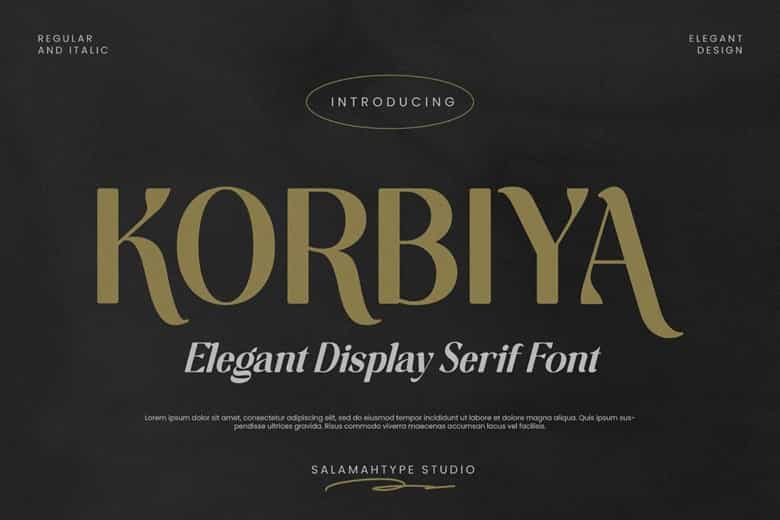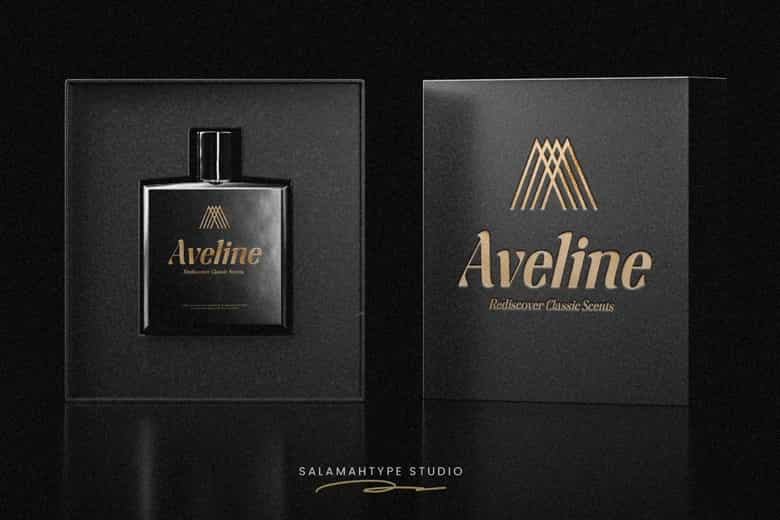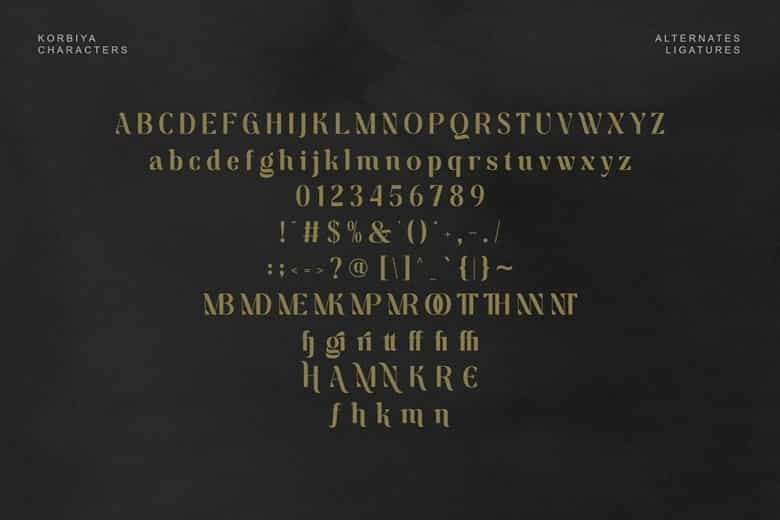
Korbiya is a new serif typeface that is classified as luxurious due to its elegant and stylish appearance. With sleek lines, right constitution and very fine records, it should be appropriate to brand, logos, fashion, beauty and premium product. It has a fairly professional look that can easily be incorporated to give any design a professional look.